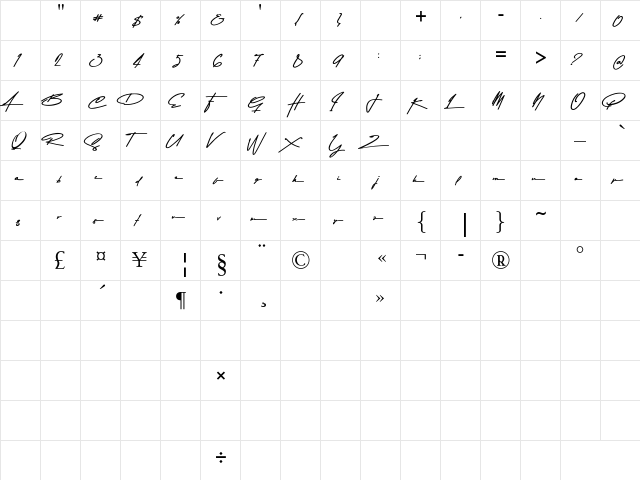
Asem Kandis Regular
Design Context for Asem Kandis Typeface
Asem Kandis is a composed and adaptable typeface that performs quietly and consistently across a wide range of design contexts.